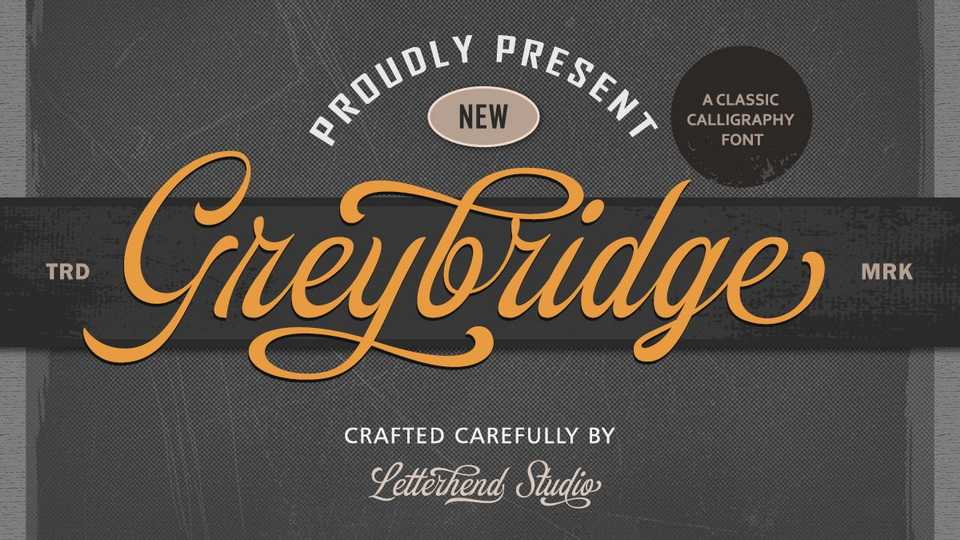
Download Greybridge font, a classic calligraphy typeface inspired by vintage lettering. Greybridge is perfect for logo and the other various formal forms such as invitations, labels, magazines, books, greeting and wedding cards and more.